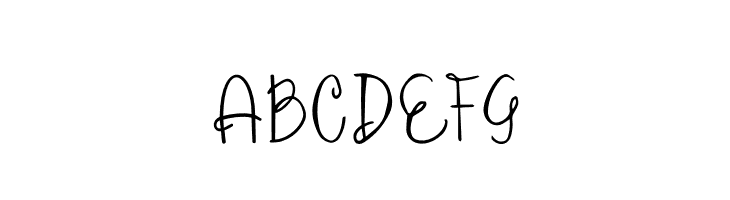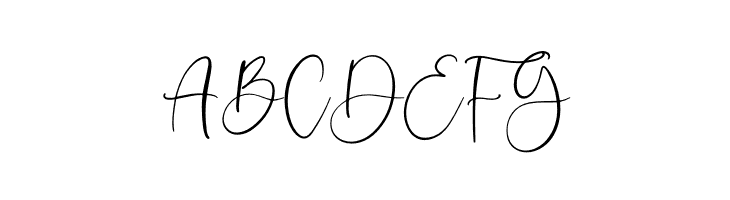
• Chahna
( Introducing Chahna, a cool and fresh handwritten font. Designed to suit the designer's needs of a font that can bring joyful feelings of children. You can use it on various projects such as invitation cards, children books, restaurant menus, etc. It come )
A playful, handwritten font with curly, dynamic strokes.
• Chahna Bold
( Introducing Chahna, a cool and fresh handwritten font. Designed to suit the designer's needs of a font that can bring joyful feelings of children. You can use it on various projects such as invitation cards, children books, restaurant menus, etc. It come )
A playful, handwritten font with a lively and dynamic appearance.
• Chams Italic
• CHANGO MARANGO
A playful, curly font with bold, rounded characters full of whimsy and movement.
• ChansonDAmour
• Chaos Times Light